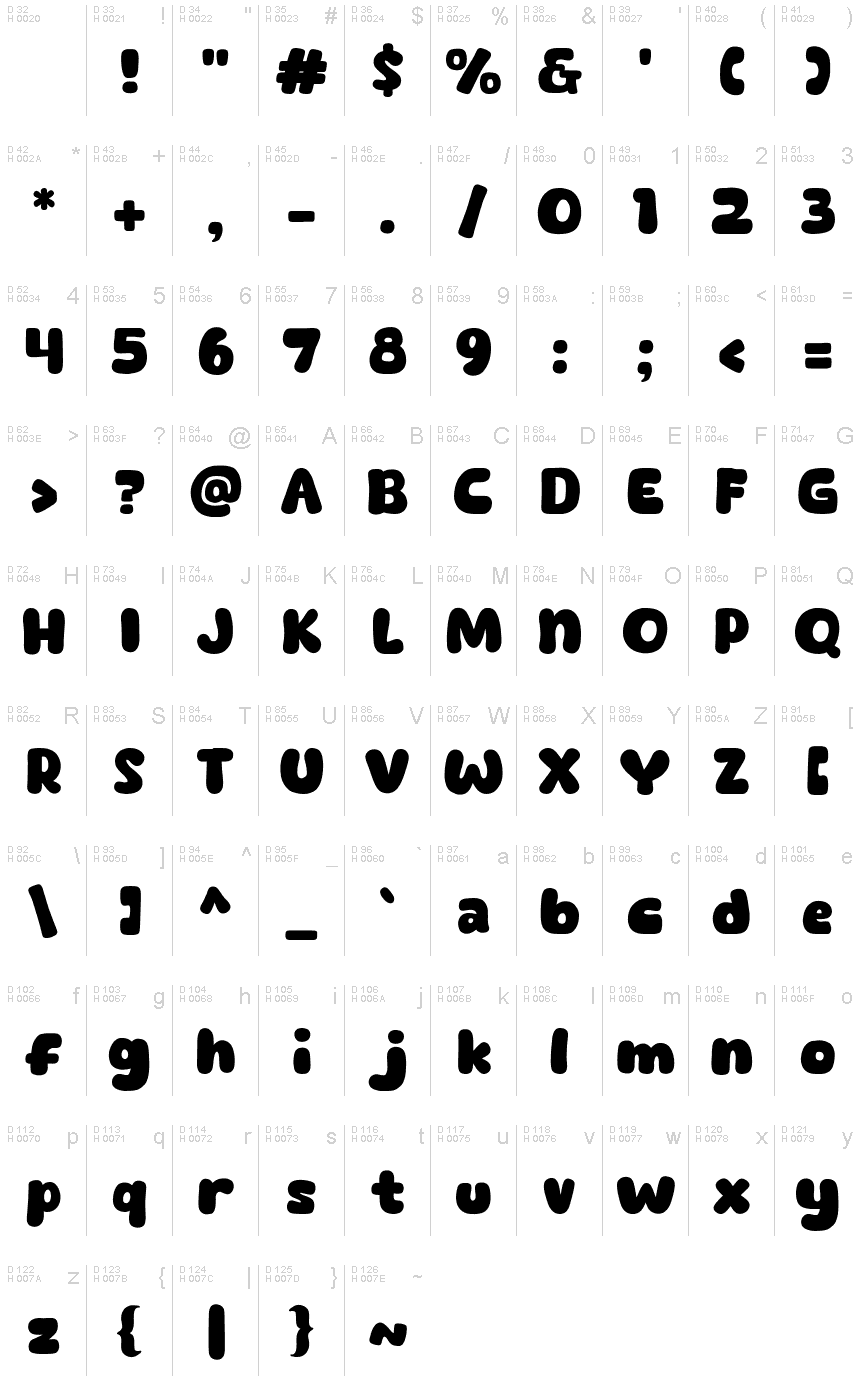
Machiato Show
Machiato Show, crafted by the talented Khurasan, is a playful delight in the display font family. With its cartoon style and extra-bold weight, this semi-expanded typeface commands attention and exudes charm. Its modern twist on whimsy makes it an irresistible choice for designers aiming to inject personality into their work.
From eye-catching posters to engaging logos, enchanting book covers to lively banners, Machiato Show is versatile enough to bring a touch of fancy to any creative endeavor.
Embrace the unique flair of Machiato Show in your next project and watch as it transforms ordinary designs into extraordinary works of art.